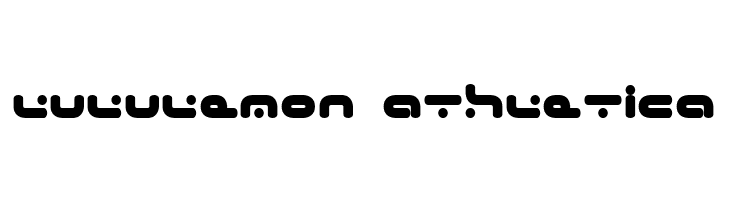
Fake Soul Demo Font
- Font: Fake Soul Demo
( Fonts by Beyond Design - Ola Bjorling )
A bold, futuristic font with rounded edges and a geometric style.